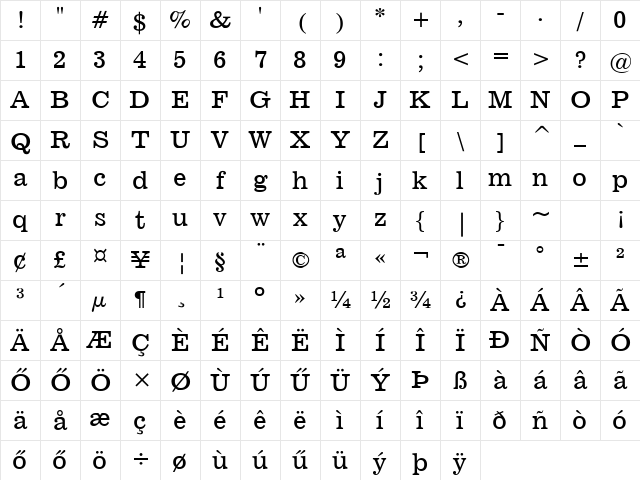
News701 HU Normal
News701 HU Family
News701 HU Normal
Design Context for News701 HU
News701 HU is a composed and adaptable typeface that performs quietly and consistently across a wide range of design contexts.
Pro Tip: Use News701 HU in both headline and body roles to test its range before committing to a single application.